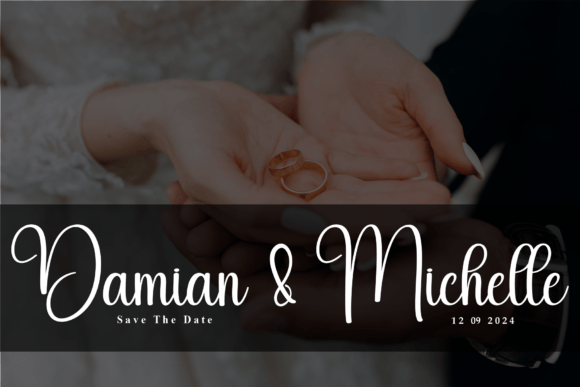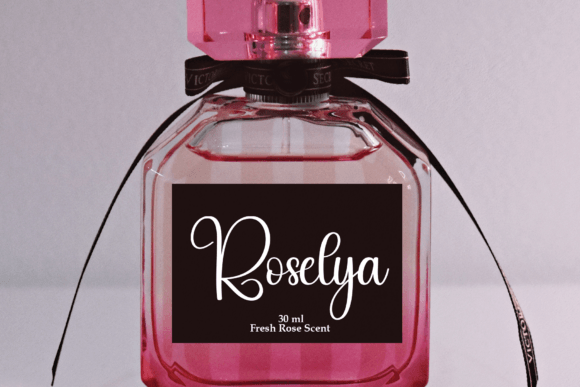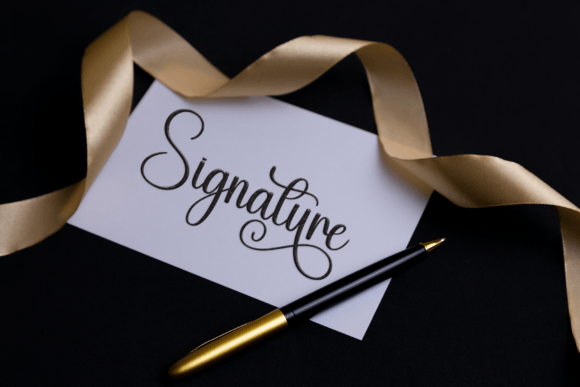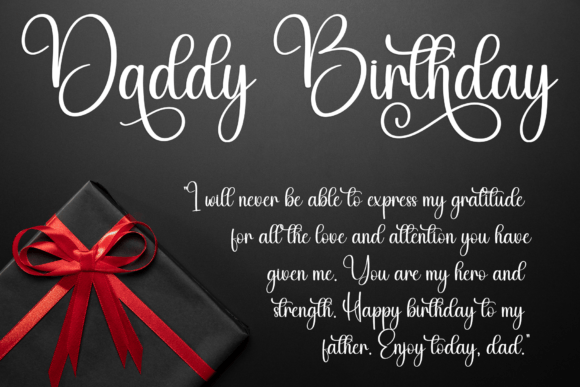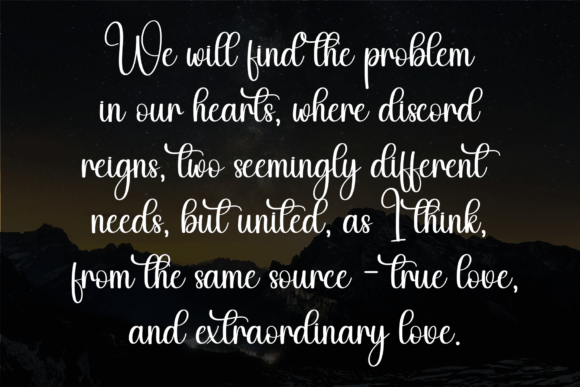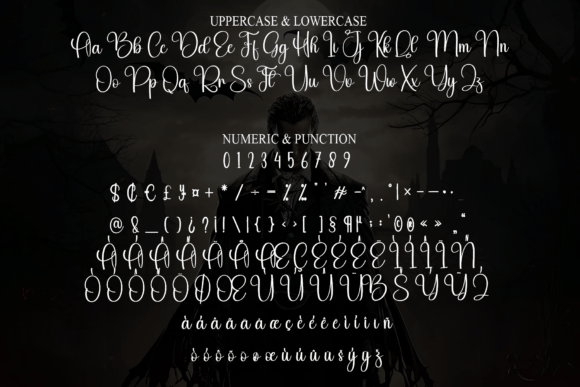
Dracula Font: The Spookiest and Stylish Handwritten Font for Your Designs
Are you looking for a font that can add a touch of mystery and fun to your designs, especially during the Halloween season? Look no further than the Dracula Font! This handwritten font is perfect for creating spooky and stylish designs that will leave a lasting impression on your audience.
What is Dracula Font?
Dracula Font is a unique and creative handwritten font that is inspired by classic horror stories. It features sharp, flowing letters that are reminiscent of the iconic vampire, Count Dracula. The font is designed to evoke a sense of mystery and intrigue, making it perfect for designs that require a touch of the unknown.
Characteristics of Dracula Font
The Dracula Font has several characteristics that make it stand out from other fonts. Some of its key features include:
- Sharp and Flowing Letters: The font features sharp, flowing letters that are elegant and sophisticated.
- Spooky and Stylish: The font has a spooky and stylish vibe that is perfect for Halloween-themed designs.
- Handwritten: The font is handwritten, giving it a personal and unique touch.
- Classic Horror Inspiration: The font is inspired by classic horror stories, making it perfect for designs that require a touch of the macabre.
Uses of Dracula Font
The Dracula Font is a versatile font that can be used for a variety of design projects. Some of the most popular uses of the font include:
- Halloween Themes: The font is perfect for creating spooky and stylish designs for Halloween-themed projects, such as invitations, posters, and social media graphics.
- Horror and Paranormal Designs: The font is ideal for designs that require a touch of the unknown, such as horror movie posters, paranormal-themed artwork, and spooky crafts.
- Gothic and Vintage Designs: The font’s classic horror inspiration makes it perfect for gothic and vintage-themed designs, such as Victorian-era inspired artwork and antique-style posters.
Tips for Using Dracula Font
Here are some tips for using the Dracula Font in your designs:
- Use it Sparingly: The font is bold and eye-catching, so use it sparingly to avoid overwhelming your design.
- Pair it with Other Fonts: The font pairs well with other fonts, such as sans-serif fonts and script fonts, to create a unique and interesting design.
- Experiment with Colors: The font looks great in a variety of colors, including bold and bright colors, as well as muted and pastel colors.
The Dracula Font is a unique and creative handwritten font that is perfect for adding a touch of mystery and fun to your designs. Its sharp, flowing letters and spooky and stylish vibe make it ideal for Halloween-themed designs, horror and paranormal designs, and gothic and vintage designs. With its versatility and ease of use, the Dracula Font is a must-have for designers and crafters looking to add a touch of the unknown to their projects.